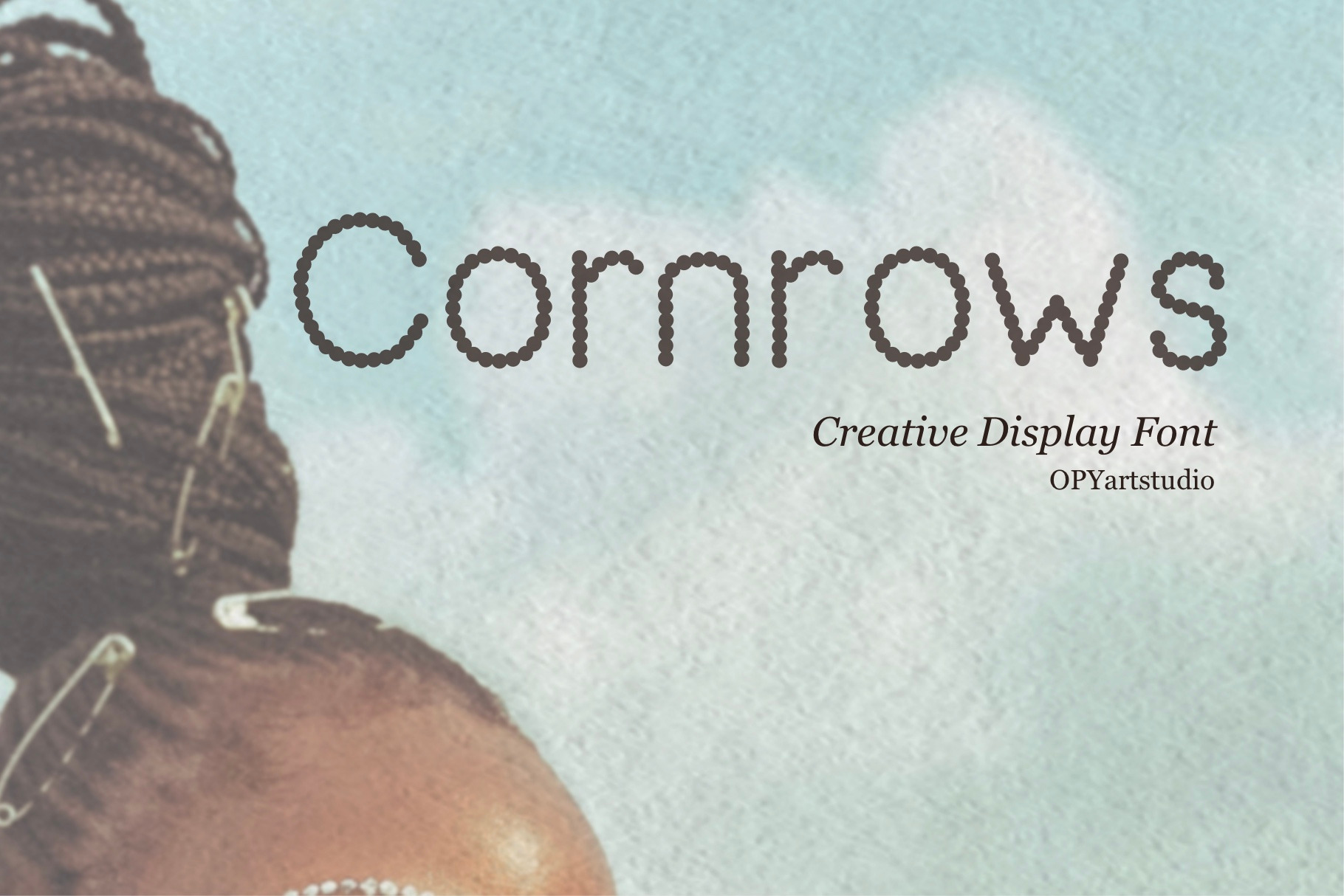
Cornrows - Creative Display Font
I'm excited to present my font creation, "Cornrows". This font was inspired by the beautiful and intricate patterns seen in traditional African hair braiding. I began by designing each letter using geometric shapes, which resulted in a unique and playful display font. Interestingly, the end result also has a resemblance to the edges of biscuits (that I always ate when I was young) .
"Cornrows" is perfect for a variety of projects including designs, posters, presentations, and prints. It's sure to add a stylish and fun element to any design.